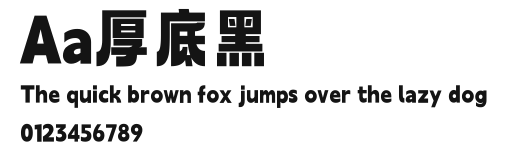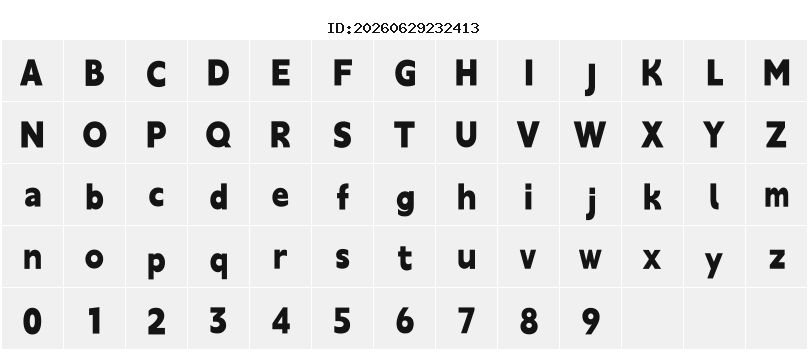
Aa厚底黑 Preview
• Designer: Aa
• Manufacturer: 翰美互通(厦门)科技有限公司
• Description: AaHouDiHei is a fantastic font with excellent features designed for user interfaces and electronic communications.
About Aa厚底黑.ttf
Aa厚底黑.ttf is a modern, elegant sans-serif font designed for ultimate readability and visual harmony. Perfect for branding, headlines, web design, and print materials.